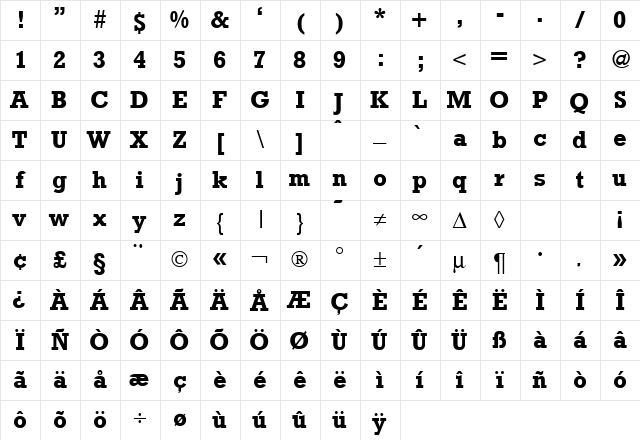
Rambault Bold Free Font
Design Context for Rambault
Rambault is a composed and adaptable typeface that performs quietly and consistently across a wide range of design contexts. Its bold stroke weight gives it real presence on the page.